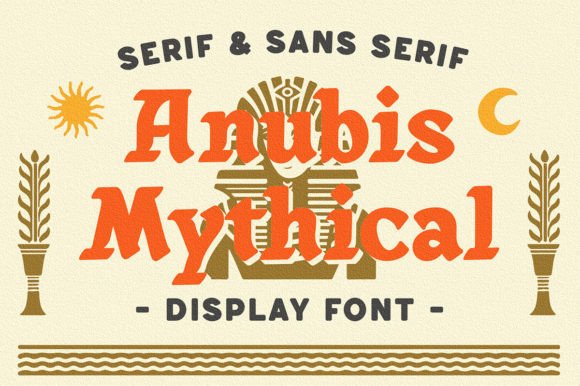
Unleash the Power of Ancient Egypt with Anubis Mythical Font
Are you looking for a font that can add a touch of ancient Egyptian flair to your designs? Look no further than the Anubis Mythical Font, a versatile and unique typeface that is perfect for creating striking badges, logos, and branding. In this article, we’ll explore the features and benefits of this amazing font and show you how to unlock your creativity with Anubis Mythical.
What is Anubis Mythical Font?
Anubis Mythical is an ultimate Egyptian font that combines the elegance of serif and sans fonts to create a truly unique and versatile typeface. This font is inspired by the ancient Egyptian god Anubis, who was often depicted as a jackal-headed deity associated with mummification and the afterlife. With its intricate details and hieroglyphic-inspired designs, Anubis Mythical Font is perfect for creating Egyptian-themed designs that are both authentic and captivating.
Key Features of Anubis Mythical Font
Anubis Mythical Font comes with three unique styles: regular, rough, and stamp. Each style offers a distinct look and feel, allowing you to experiment with different designs and moods. The regular style is perfect for creating elegant and sophisticated designs, while the rough style adds a touch of ruggedness and texture. The stamp style, on the other hand, is ideal for creating vintage and distressed designs.
Another key feature of Anubis Mythical Font is its ligature feature. Ligatures are special characters that combine two or more letters into a single glyph, creating a more cohesive and harmonious look. With Anubis Mythical Font, you can use ligatures to add a touch of elegance and sophistication to your designs.
Perfect for Badges, Logos, and Branding
Anubis Mythical Font is perfect for creating striking badges, logos, and branding that require a unique and captivating look. The font’s serif and sans combinations make it highly versatile, allowing you to use it for a wide range of design projects. Whether you’re creating a logo for a company, designing a badge for an event, or developing a brand identity, Anubis Mythical Font is the perfect choice.
The font’s Egyptian-inspired designs also make it ideal for creating themed designs, such as Egyptian-themed posters, flyers, and brochures. With Anubis Mythical Font, you can add a touch of ancient Egypt to your designs and create something truly unique and captivating.
Benefits of Using Anubis Mythical Font
There are many benefits to using Anubis Mythical Font in your designs. Here are a few:
- Unique and Captivating Look: Anubis Mythical Font offers a unique and captivating look that is sure to grab attention. Its Egyptian-inspired designs and intricate details make it perfect for creating striking badges, logos, and branding.
- Versatility: The font’s serif and sans combinations make it highly versatile, allowing you to use it for a wide range of design projects.
- Ligature Feature: The font’s ligature feature allows you to add a touch of elegance and sophistication to your designs.
Tips and Tricks for Getting the Most Out of Anubis Mythical Font
Here are some tips and tricks for getting the most out of Anubis Mythical Font:
- Experiment with Different Styles: Try out the different styles of Anubis Mythical Font, including regular, rough, and stamp.
- Use Ligatures: Use the ligature feature to add a touch of elegance and sophistication to your designs.
- Combine with Other Fonts: Combine Anubis Mythical Font with other fonts to create a unique and captivating look.
- Use for Themed Designs: Use Anubis Mythical Font for themed designs, such as Egyptian-themed posters, flyers, and brochures.
In conclusion, Anubis Mythical Font is a versatile and unique typeface that is perfect for creating striking badges, logos, and branding. With its Egyptian-inspired designs, intricate details, and ligature feature, this font is sure to add a touch of ancient Egypt to your designs. Whether you’re a designer, artist, or simply someone looking to add a touch of creativity to your projects, Anubis Mythical Font is the perfect choice. So why wait? Unlock your creativity with Anubis Mythical Font today!
Here are some frequently asked questions about Anubis Mythical Font:
- What is Anubis Mythical Font?
- Anubis Mythical Font is an ultimate Egyptian font that combines the elegance of serif and sans fonts to create a truly unique and versatile typeface.
- What styles does Anubis Mythical Font come in?
- Anubis Mythical Font comes in three unique styles: regular, rough, and stamp.
- What is the ligature feature?
- The ligature feature is a special feature that allows you to combine two or more letters into a single glyph, creating a more cohesive and harmonious look.